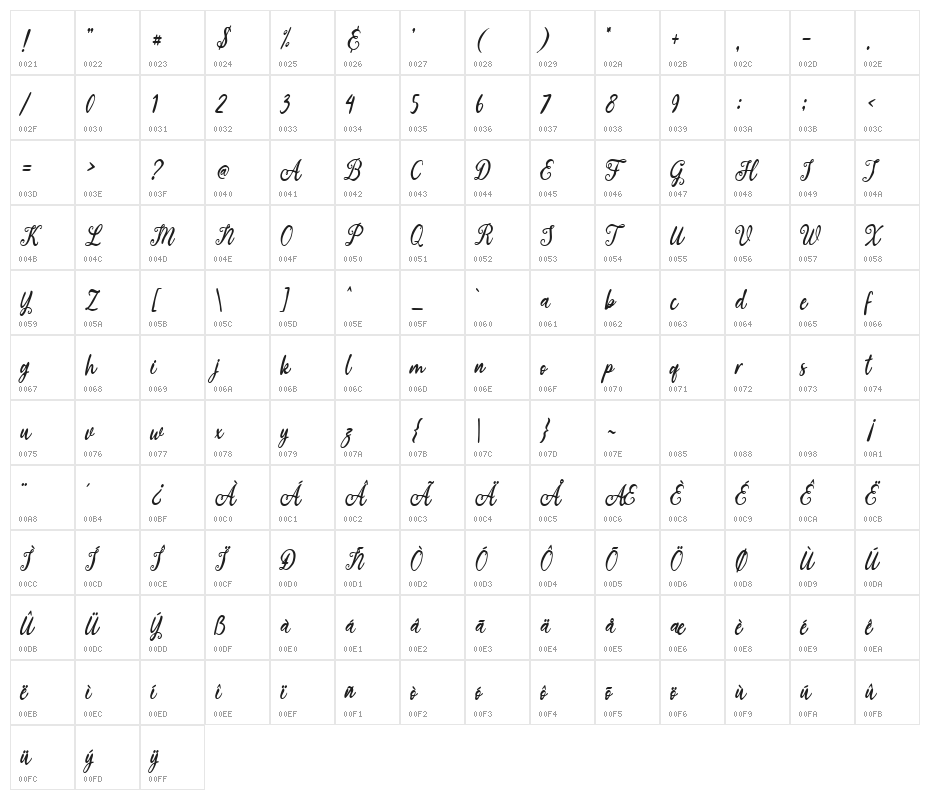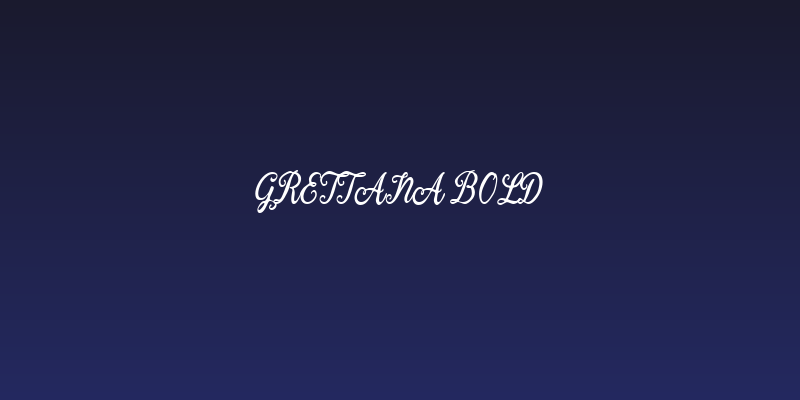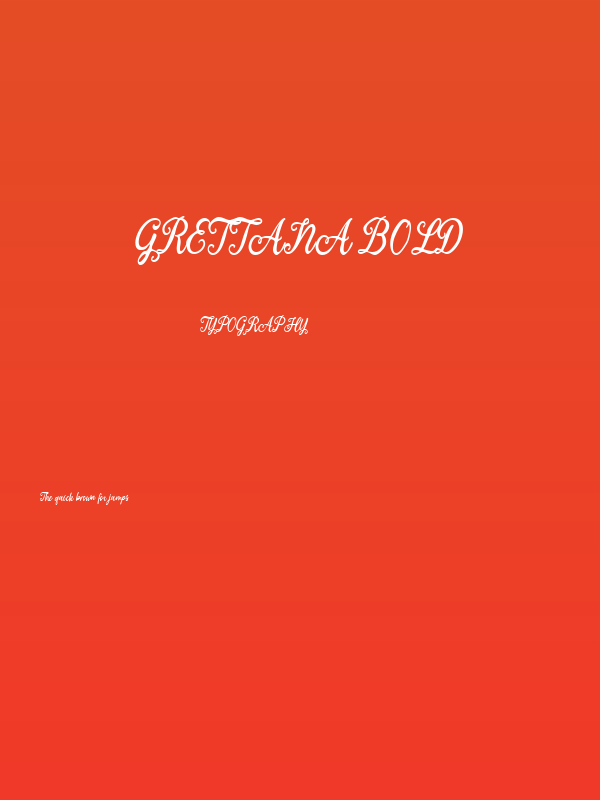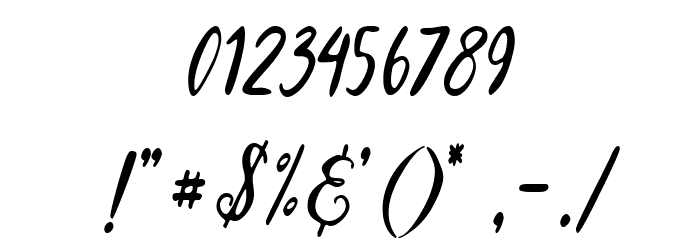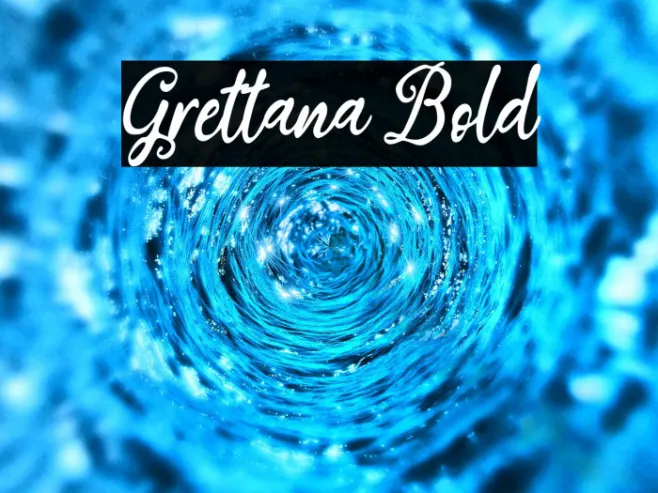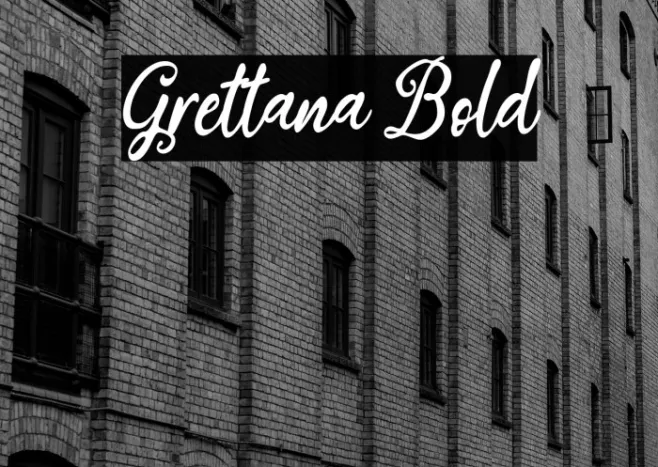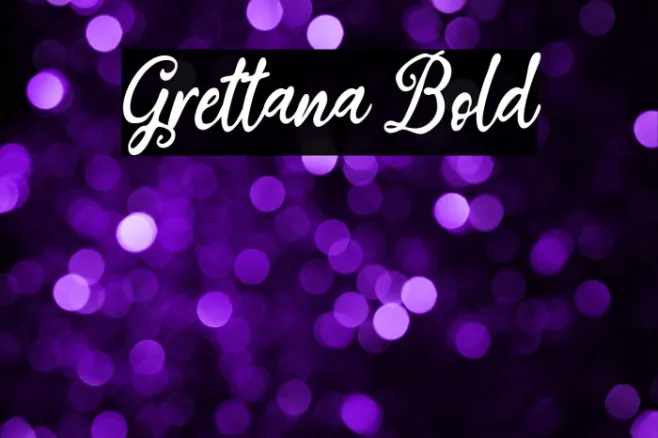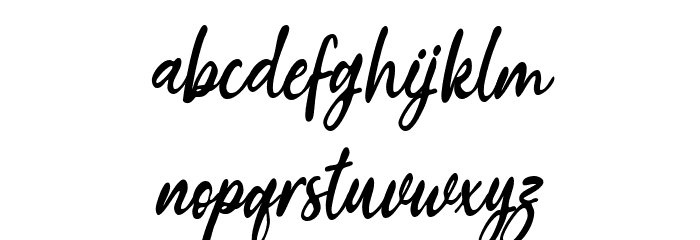
Grettana Bold Font
This font features an elegant and flowing script style, characterized by its ornate and decorative swirls. The uppercase letters are particularly elaborate, with each character exhibiting unique flourishes that add a touch of sophistication. The lowercase letters maintain a consistent cursive style, ensuring readability while preserving the font's artistic flair. Numbers and special characters are designed to match the overall aesthetic, making this font suitable for a variety of creative applications. The bold weight enhances its presence, making it ideal for standout designs.